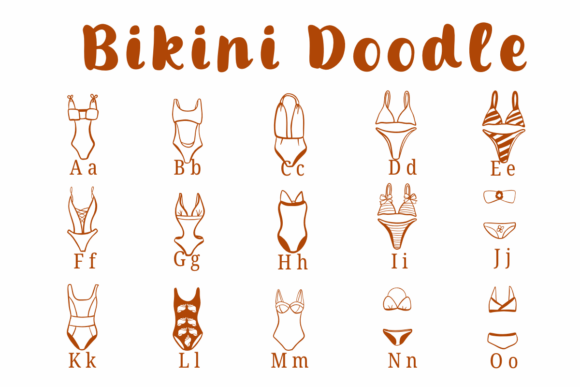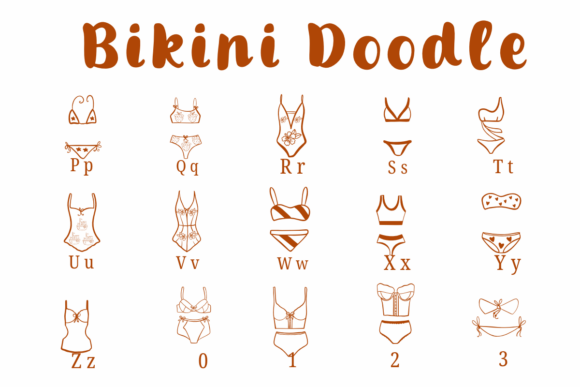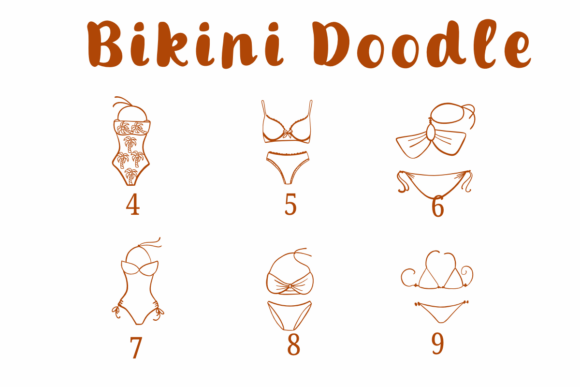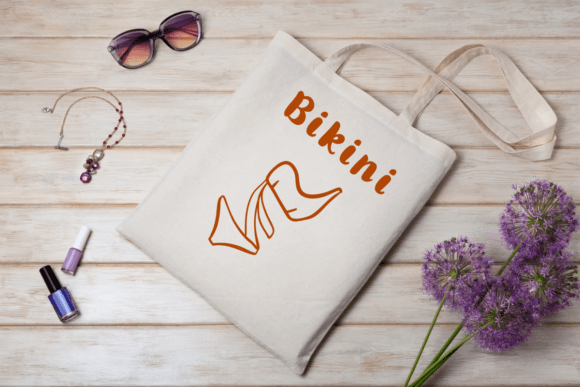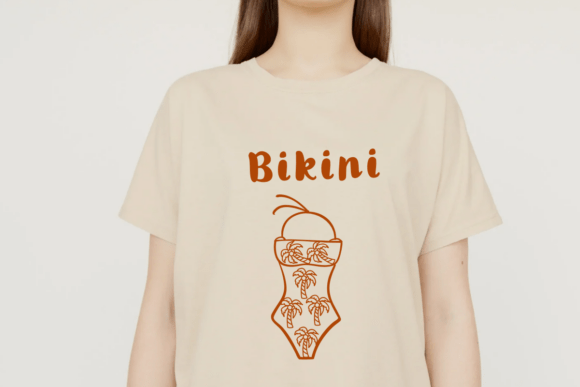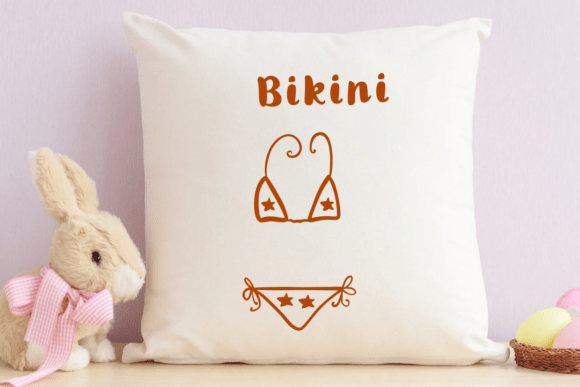
Bikini Doodle Font: Elevate Your Creative Projects with a Sketched Style
Are you a designer, crafter, or DIY enthusiast looking for a unique font to add a personal touch to your projects? Look no further than the Bikini Doodle Font, a charming dingbats font with a sketched style that’s perfect for a wide range of creative applications. In this article, we’ll dive into the world of Bikini Doodle Font, exploring its features, uses, and benefits, as well as providing tips and inspiration for incorporating it into your work.
What is Bikini Doodle Font?
Bikini Doodle Font is a dingbats font that features hand-sketched illustrations, giving it a delightfully imperfect and organic feel. This font is designed to add a touch of whimsy and personality to your projects, making it ideal for creative endeavors that require a personal touch. With its unique sketched style, Bikini Doodle Font is sure to stand out from more traditional fonts and add visual interest to your work.
Features of Bikini Doodle Font
So, what makes Bikini Doodle Font so special? Here are just a few of its key features:
- Hand-sketched illustrations: Each character in Bikini Doodle Font is carefully hand-drawn, giving the font a unique, one-of-a-kind feel.
- Dingbats style: As a dingbats font, Bikini Doodle Font features illustrations and symbols rather than traditional letters and numbers.
- Versatile: With a wide range of illustrations and symbols, Bikini Doodle Font can be used for a variety of projects and applications.
Uses for Bikini Doodle Font
So, what can you use Bikini Doodle Font for? The possibilities are endless! Here are a few ideas to get you started:
- Wedding invitations: Add a touch of whimsy and romance to your wedding stationery with Bikini Doodle Font.
- DIY projects: Use Bikini Doodle Font to add a personal touch to your DIY crafts, such as signs, banners, and decorations.
- Logos and branding: Create a unique and memorable logo for your business or brand with Bikini Doodle Font.
- Decorations: Use Bikini Doodle Font to create custom decorations, such as garlands, banners, and wall art.
- Crafts: Add a touch of personality to your crafts, such as scrapbooking, card-making, and journaling.
Inspiration for Your Next Project
Need some inspiration for your next project? Here are a few ideas to get you started:
- Create a custom wedding invitation: Use Bikini Doodle Font to create a one-of-a-kind wedding invitation that sets the tone for your special day.
- Make a DIY sign: Use Bikini Doodle Font to create a custom sign for your home or business.
- Design a logo: Use Bikini Doodle Font to create a unique and memorable logo for your business or brand.